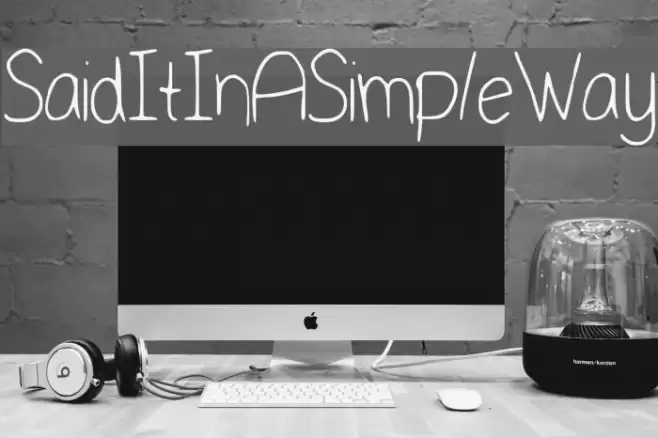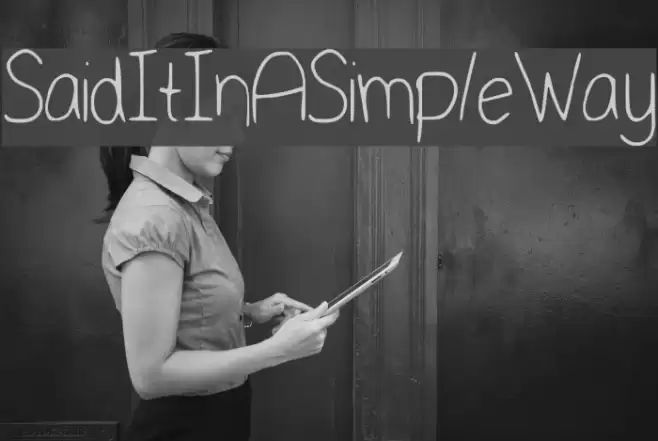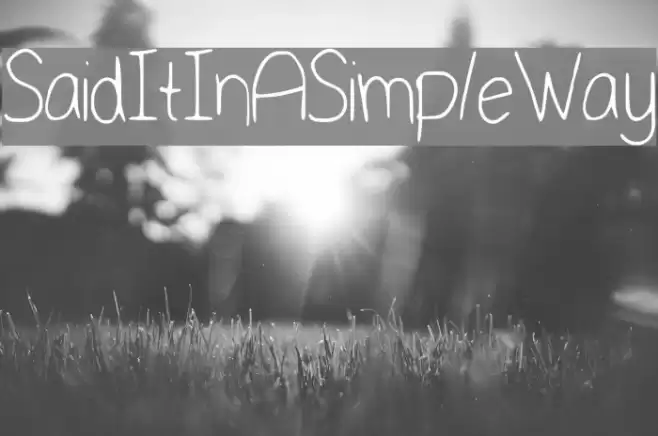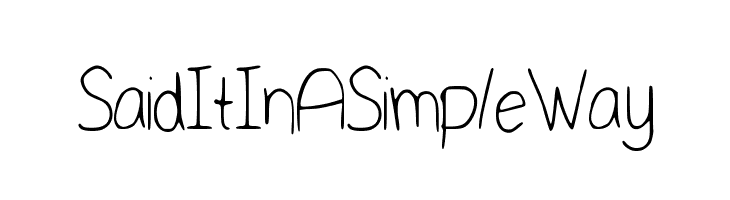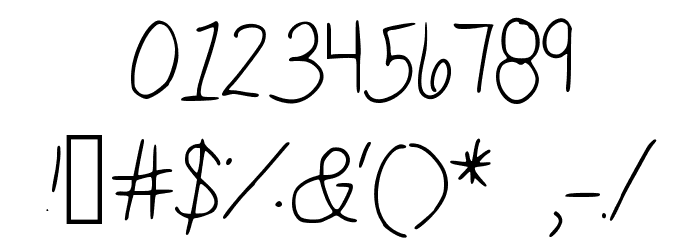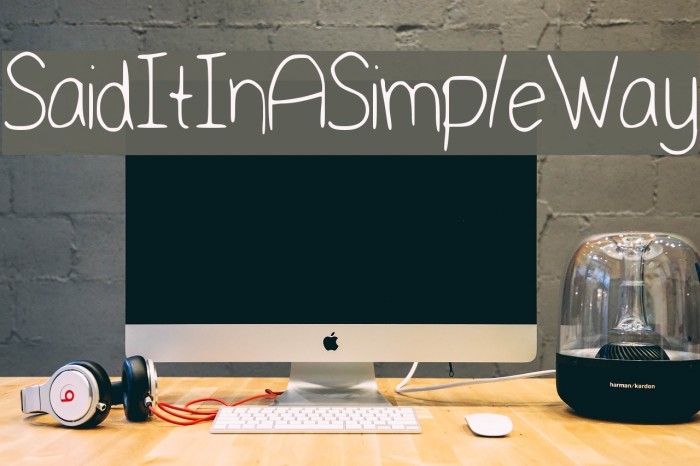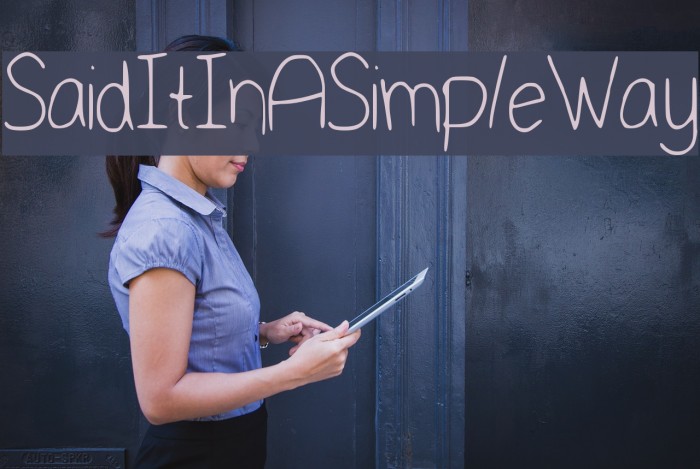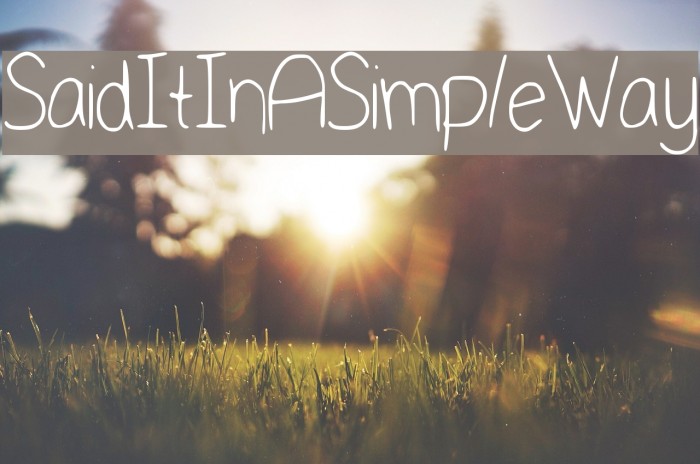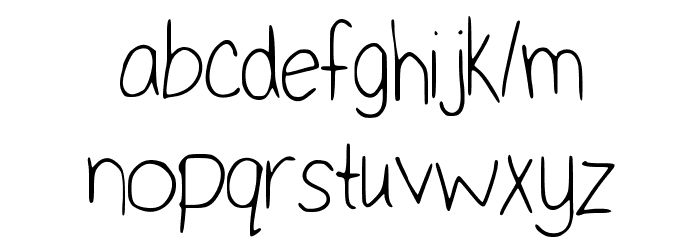
SaidItInASimpleWay Font
SaidItInASimpleWay Description
This font features a playful and casual handwritten style, characterized by its irregular and slightly whimsical letterforms. The strokes are uneven, giving it a personal and informal touch, reminiscent of a quick sketch or doodle. The characters are tall and narrow, with a slight slant that adds to the dynamic feel. The uppercase and lowercase letters maintain a consistent style, while the numerals and special characters complement the overall aesthetic. This font's unique charm makes it suitable for creative and informal projects.
A playful, handwritten font with irregular, whimsical letterforms from Uncategorized fonts.
- Proposed Projects: Ideal for greeting cards, children's books, casual invitations, and creative branding.
- Overall Style: Casual
- Use Case: Headlines, Informal text, Creative projects